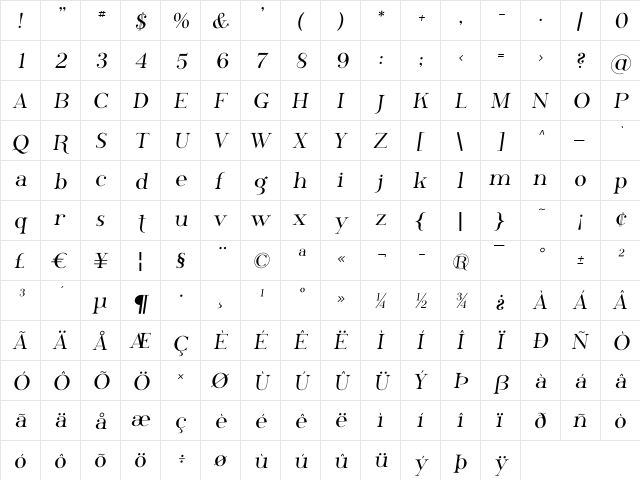
Phosphorus Regular Font Preview
Phosphorus Regular
Phosphorus Regular Font Details
| Designer | Derek Vogelpohl |
Design Context for Phosphorus Typeface
Phosphorus takes a measured approach to typography — its balanced proportions and neutral character make it a reliable workhorse for both digital and print work.